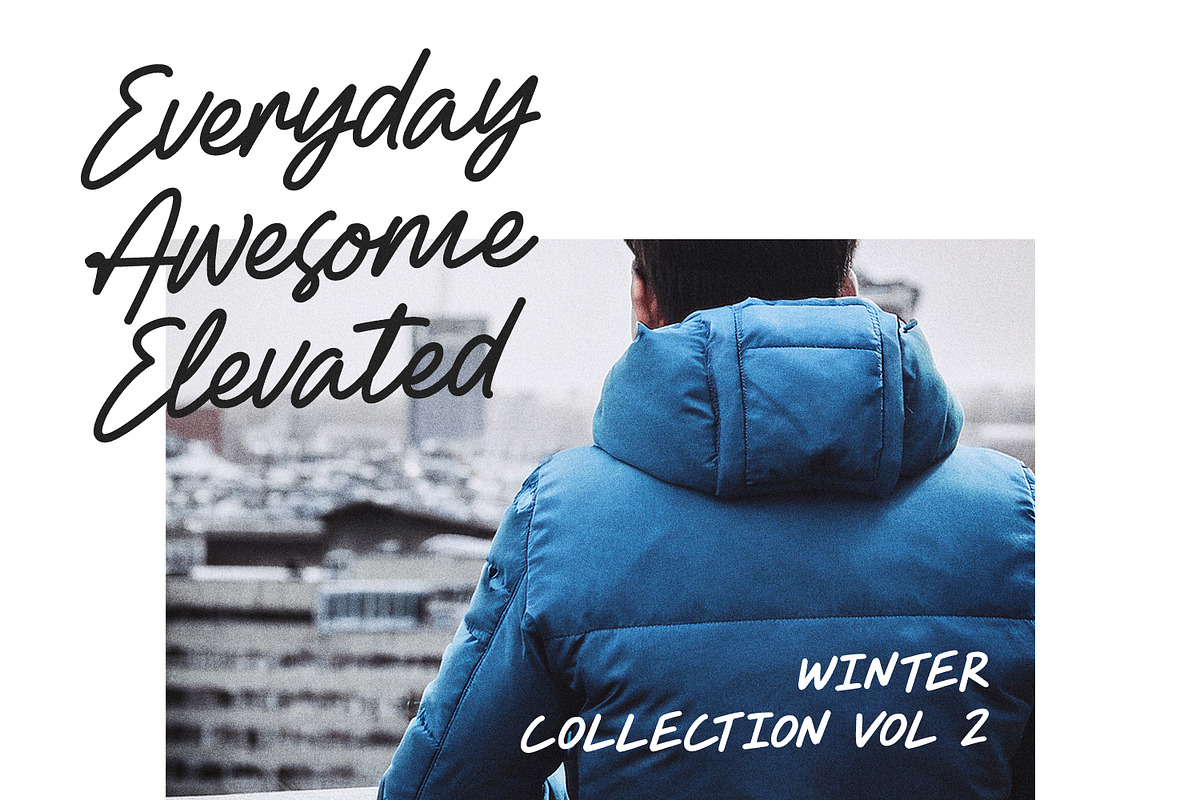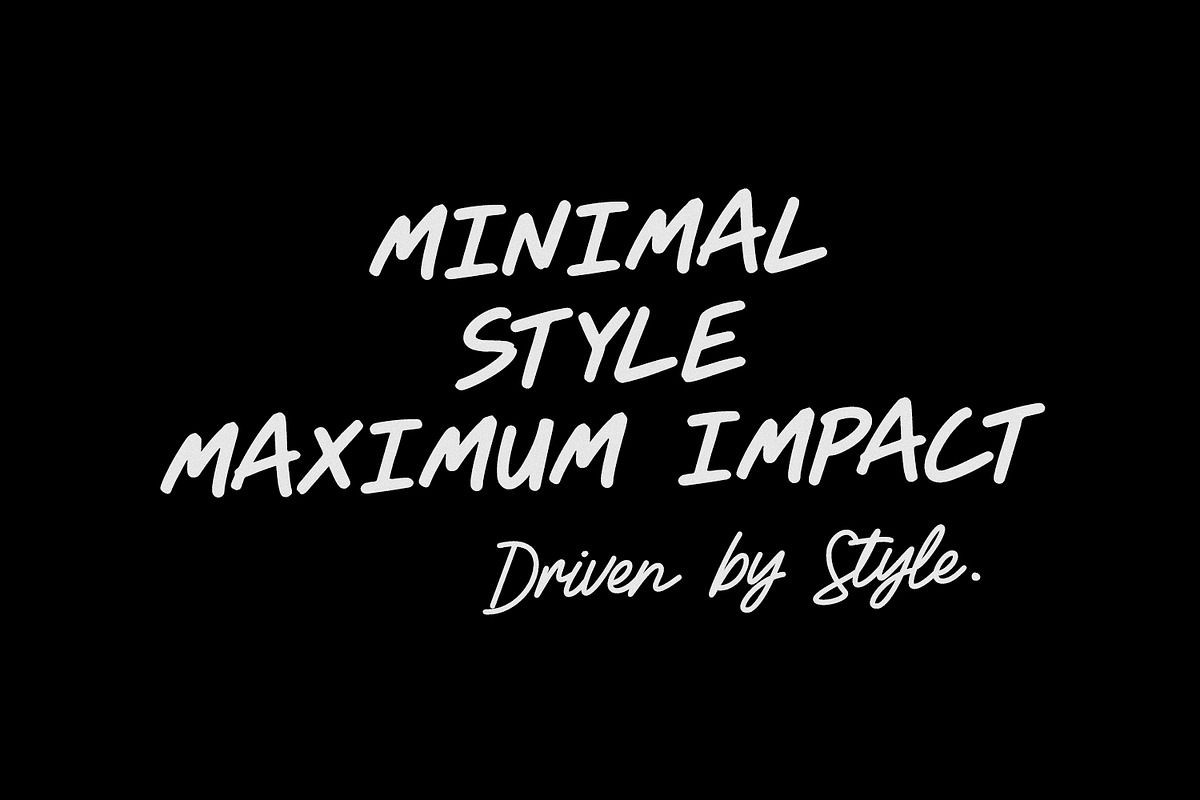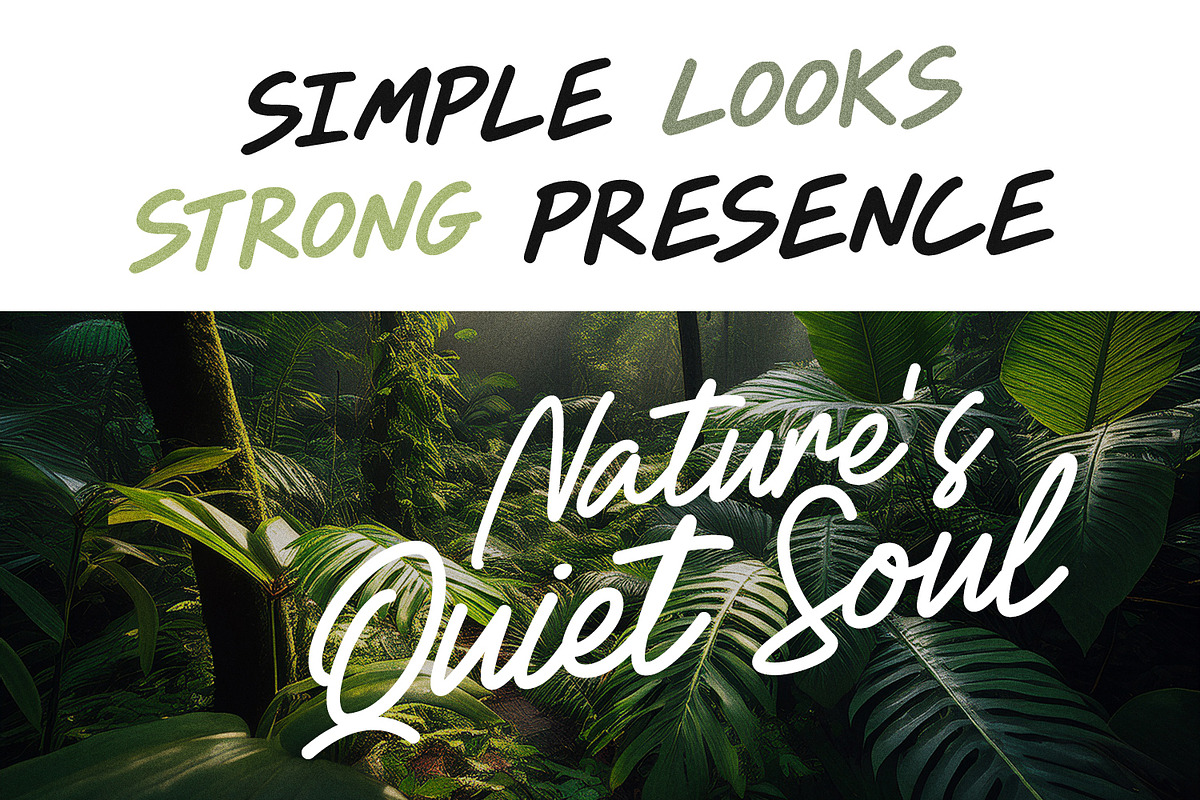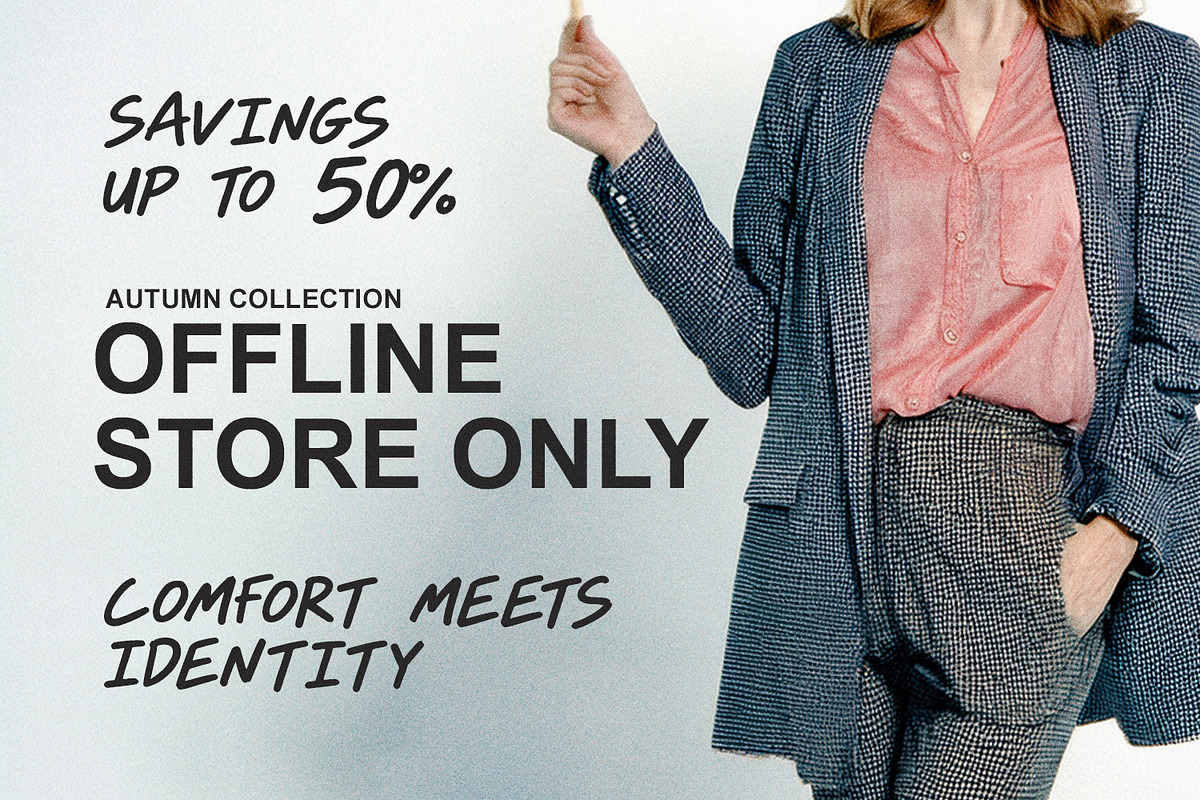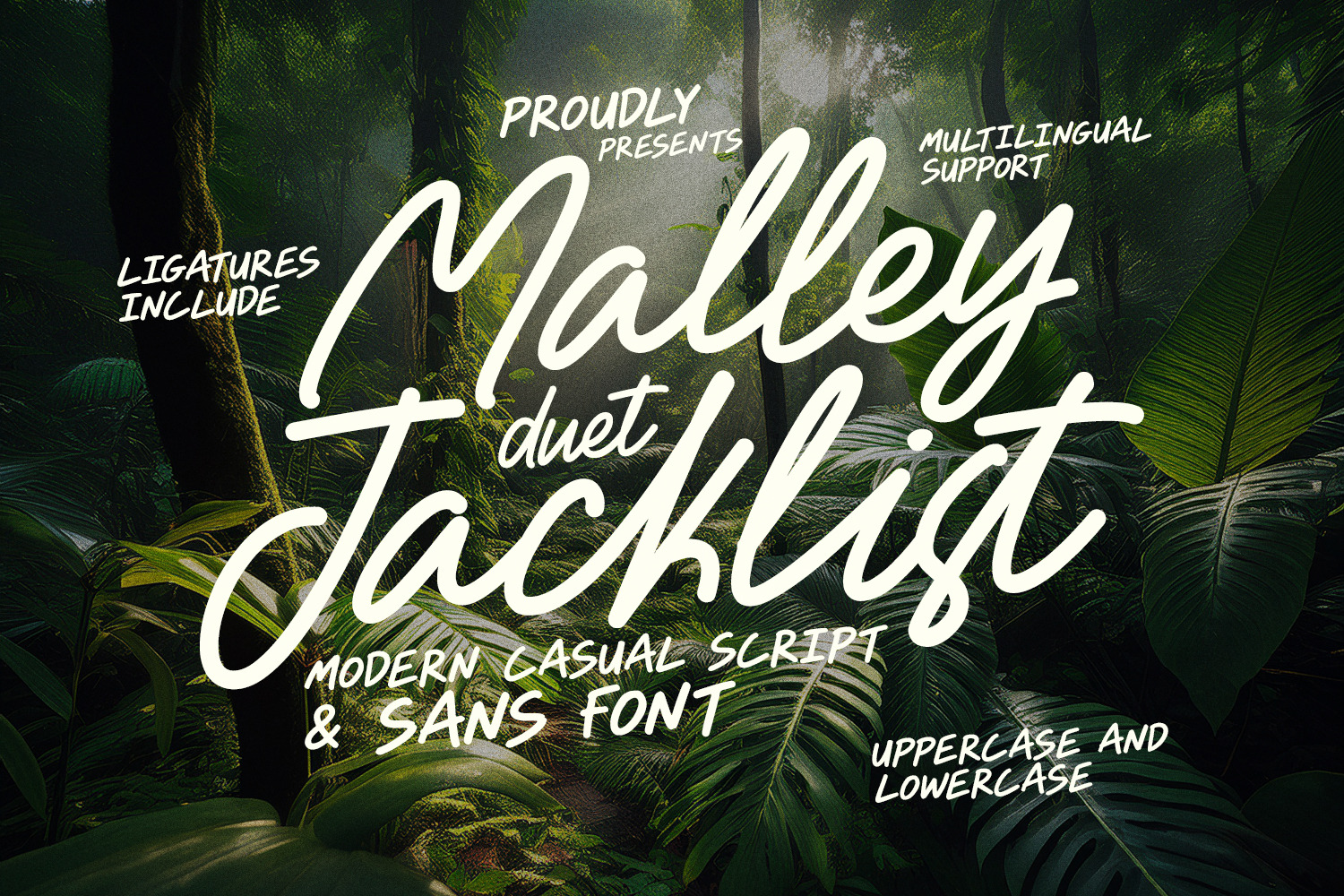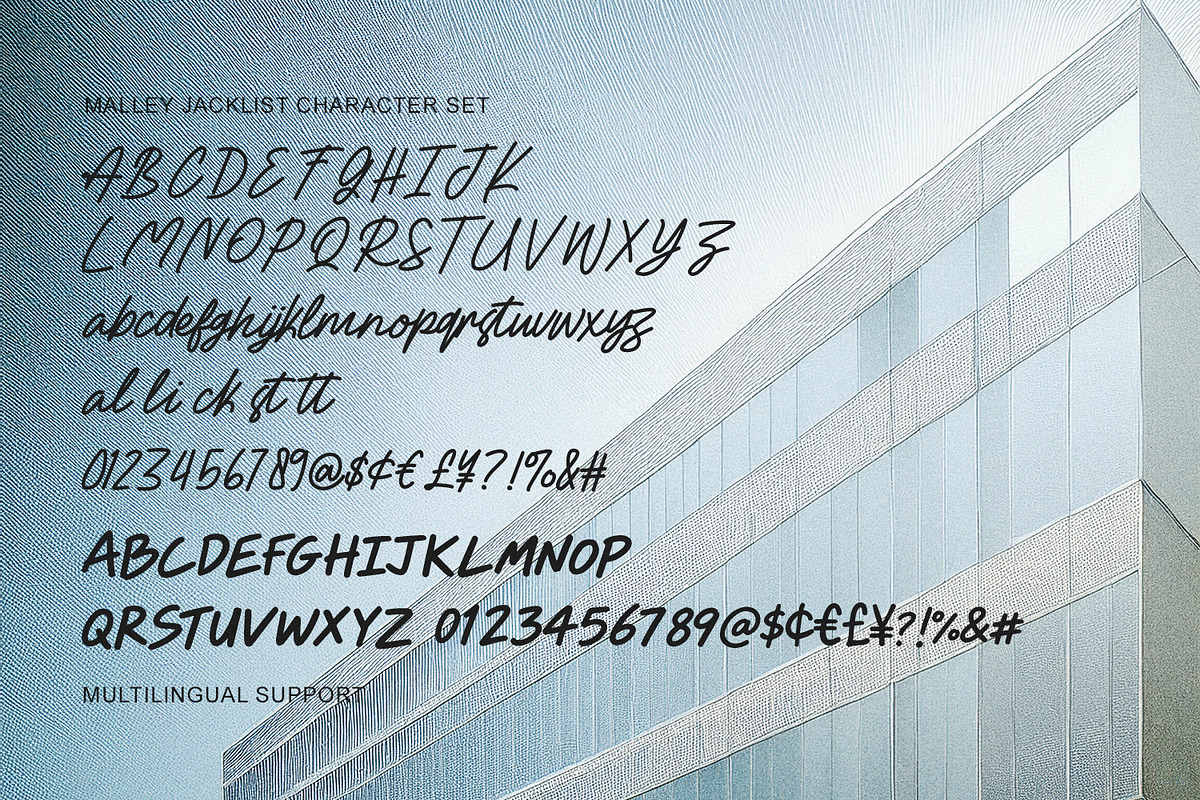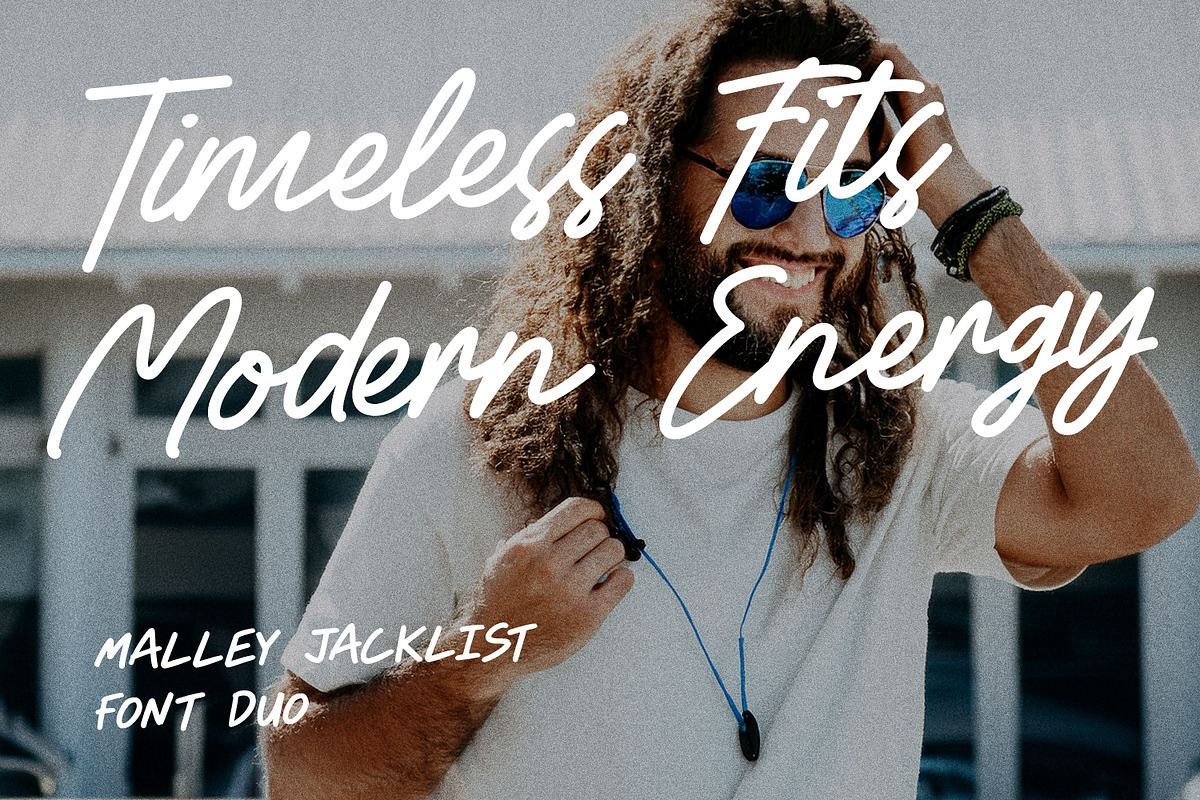
Malley Jacklist Script Sans Font Duo
Malley Jacklist is a versatile font duo combining a stylish, modern casual script with a clean, complementary sans-serif style. Designed for seamless typographic pairings, this combination delivers expressive handwritten fluidity alongside structured clarity. Complete with uppercase, lowercase, numbers, punctuation, ligatures, and multilingual support, it offers endless creative flexibility for contemporary graphic design project needs.
Ideal for striking brand identities, social media graphics, product packaging, editorial layouts, and promotional banners, Malley Jacklist brings an effortless balance of charm and sophistication. The expressive script effortlessly draws attention for headlines and signatures, while the accompanying sans-serif ensures excellent readability for body text and supportive subtitles across digital media.
- Ligature for a natural handwriting flow